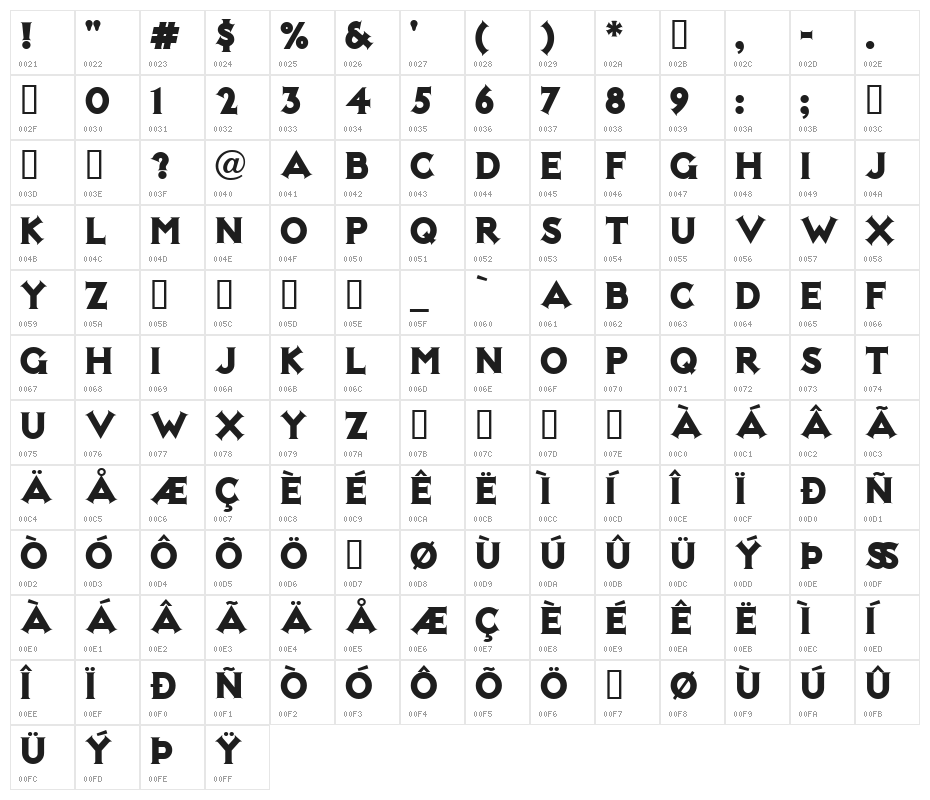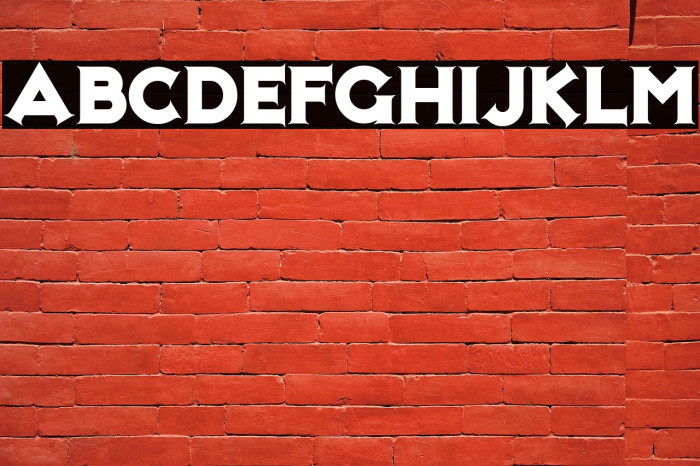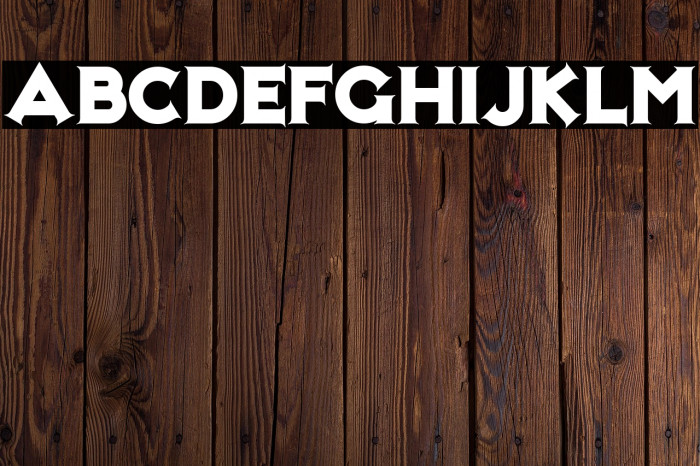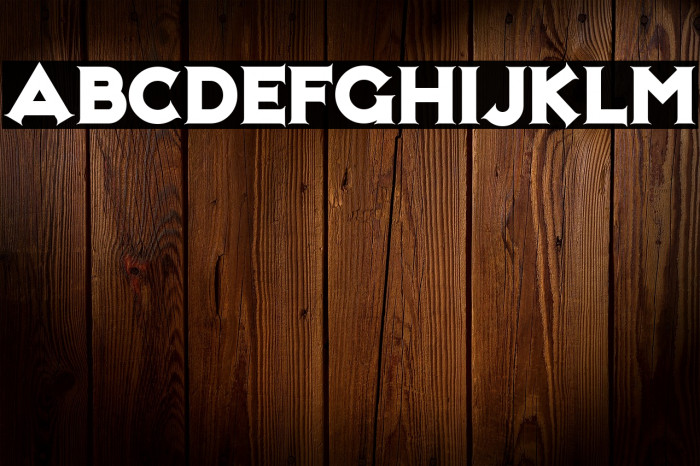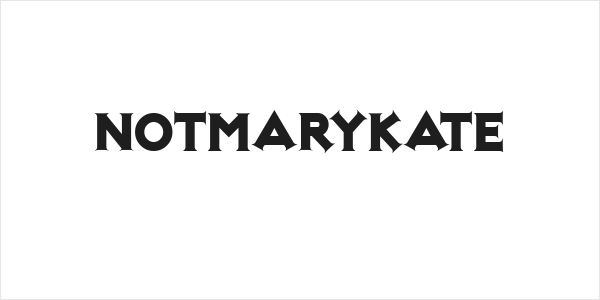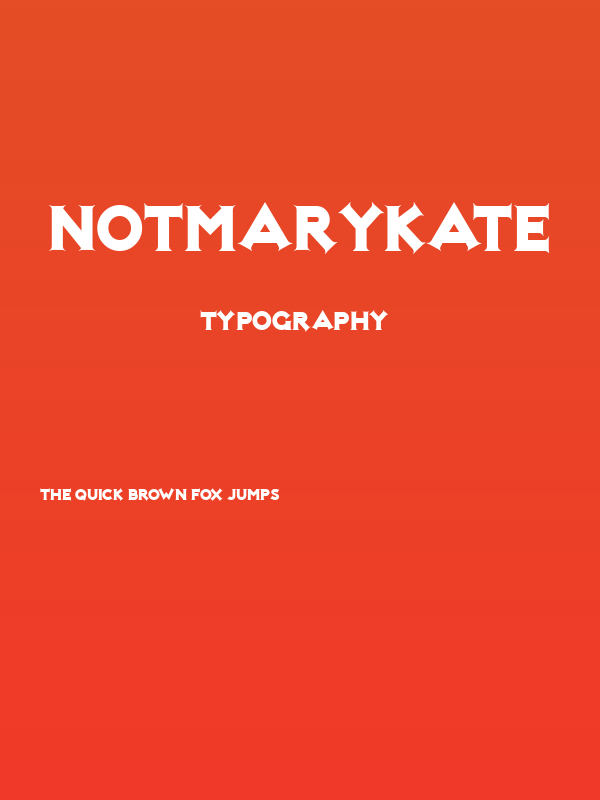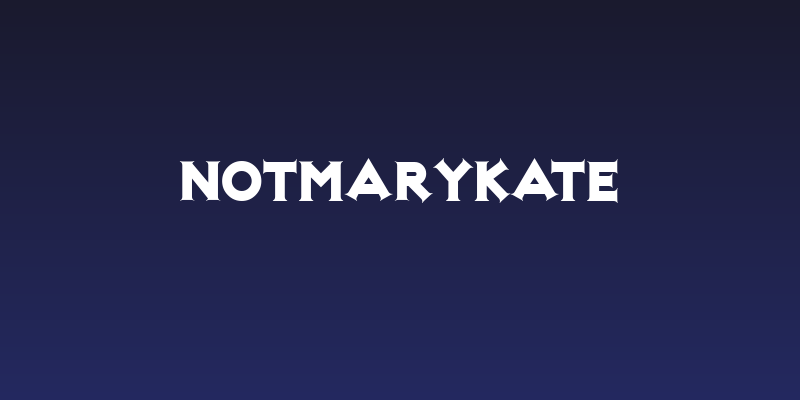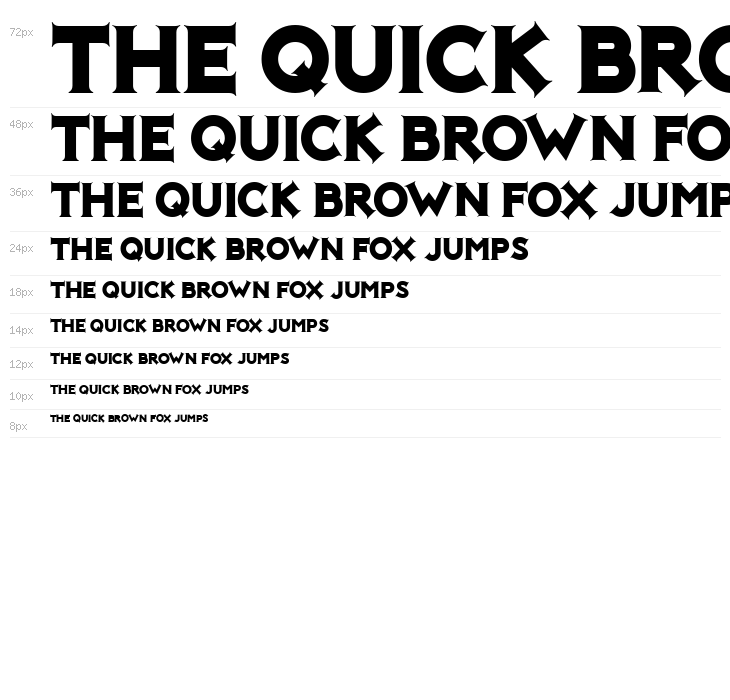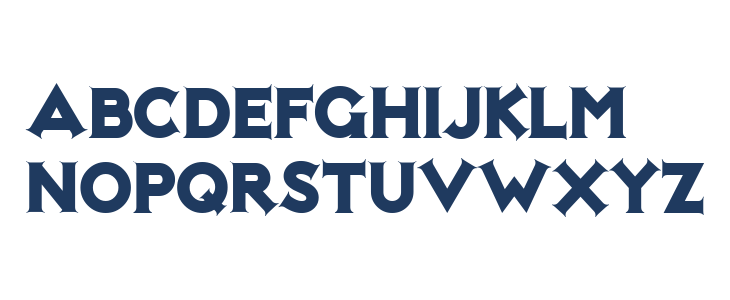
NotMaryKate Font
NotMaryKate Description
This font features a bold and striking design with sharp, angular serifs that give it a distinctive and aggressive appearance. The characters are uniformly bold, with a consistent stroke weight that adds to its strong visual impact. The uppercase letters are particularly prominent, with a geometric style that emphasizes their angular serifs. The numbers and special characters maintain this bold and angular aesthetic, ensuring a cohesive look across all glyphs. The font's unique style makes it suitable for attention-grabbing headlines and logos, where a strong and memorable impression is desired.